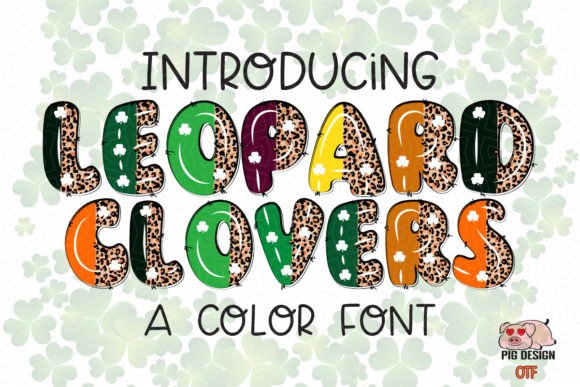
Introducing Leopard Clovers, the colorful font that will add a creative and whimsical touch to your designs. Created by PIG.design, this font is a must-have for anyone looking to elevate their designs with a Font For Stamp Design.
Leopard Clovers is more than just a font, it's a work of art. Featuring unique patterns and bold colors, it will make your designs stand out from the crowd. Whether you're designing a wall display, wedding invitations, social media posts, logos, advertisements, or product packaging, this font is perfect for you.
This font is not only eye-catching but also versatile, making it incredibly fitting for a large pool of designs. Its cute and playful style will evoke positive emotions in your audience, making it perfect for any project that requires a touch of creativity.
Leopard Clovers Font is easy to use, and with its high-quality design, your text will look amazing both online and in print. With its variety of colors and patterns, you can create designs that are both fun and professional.